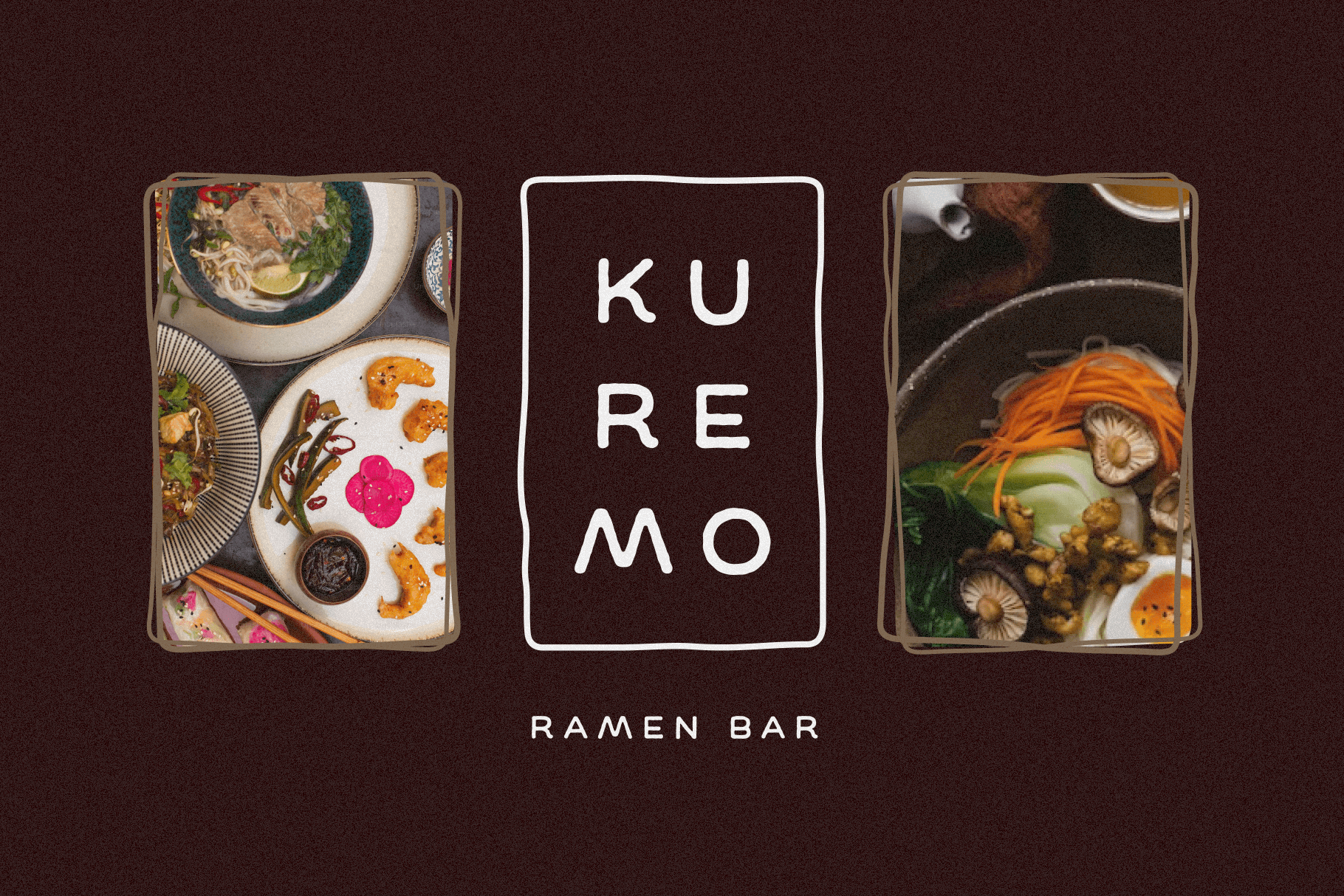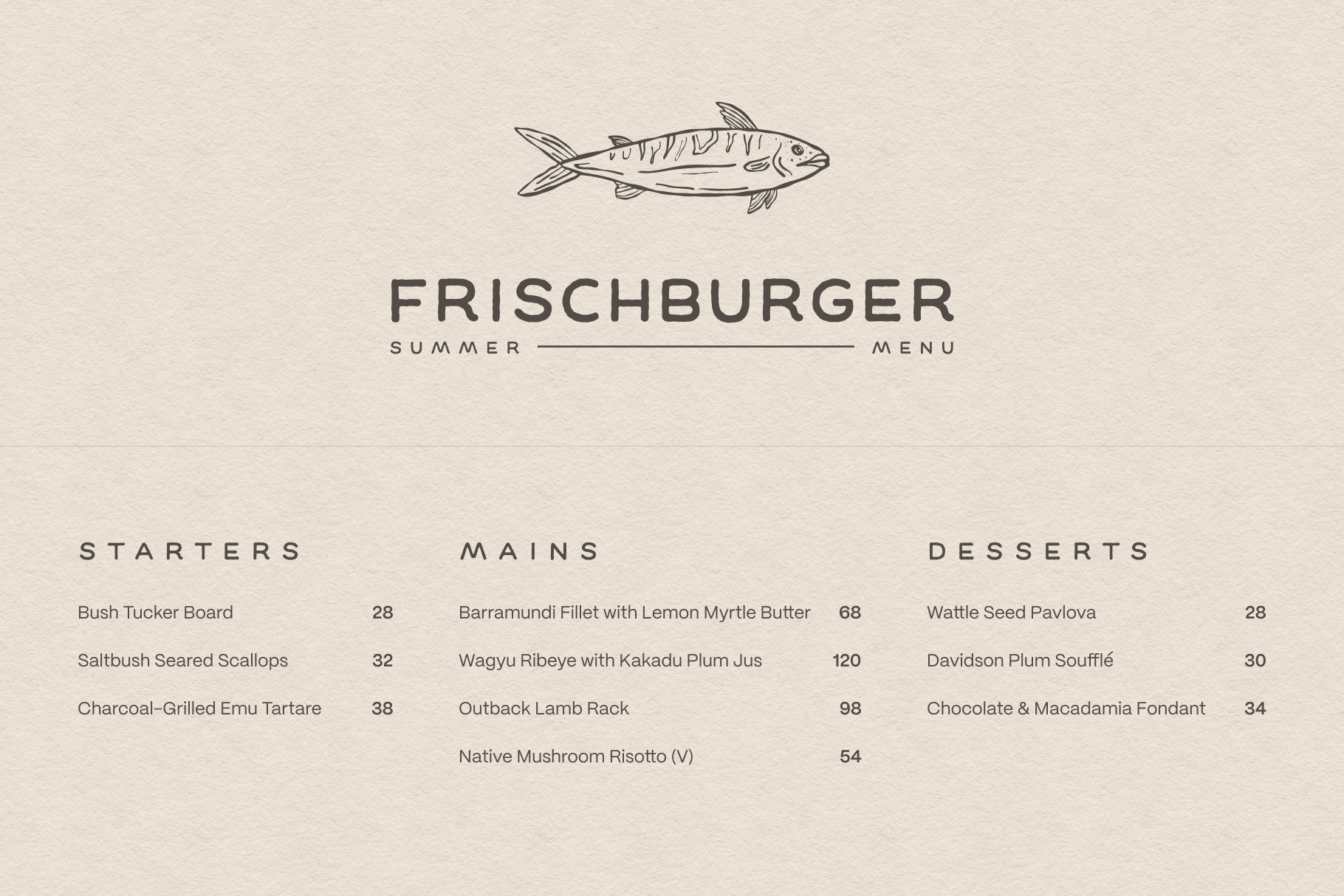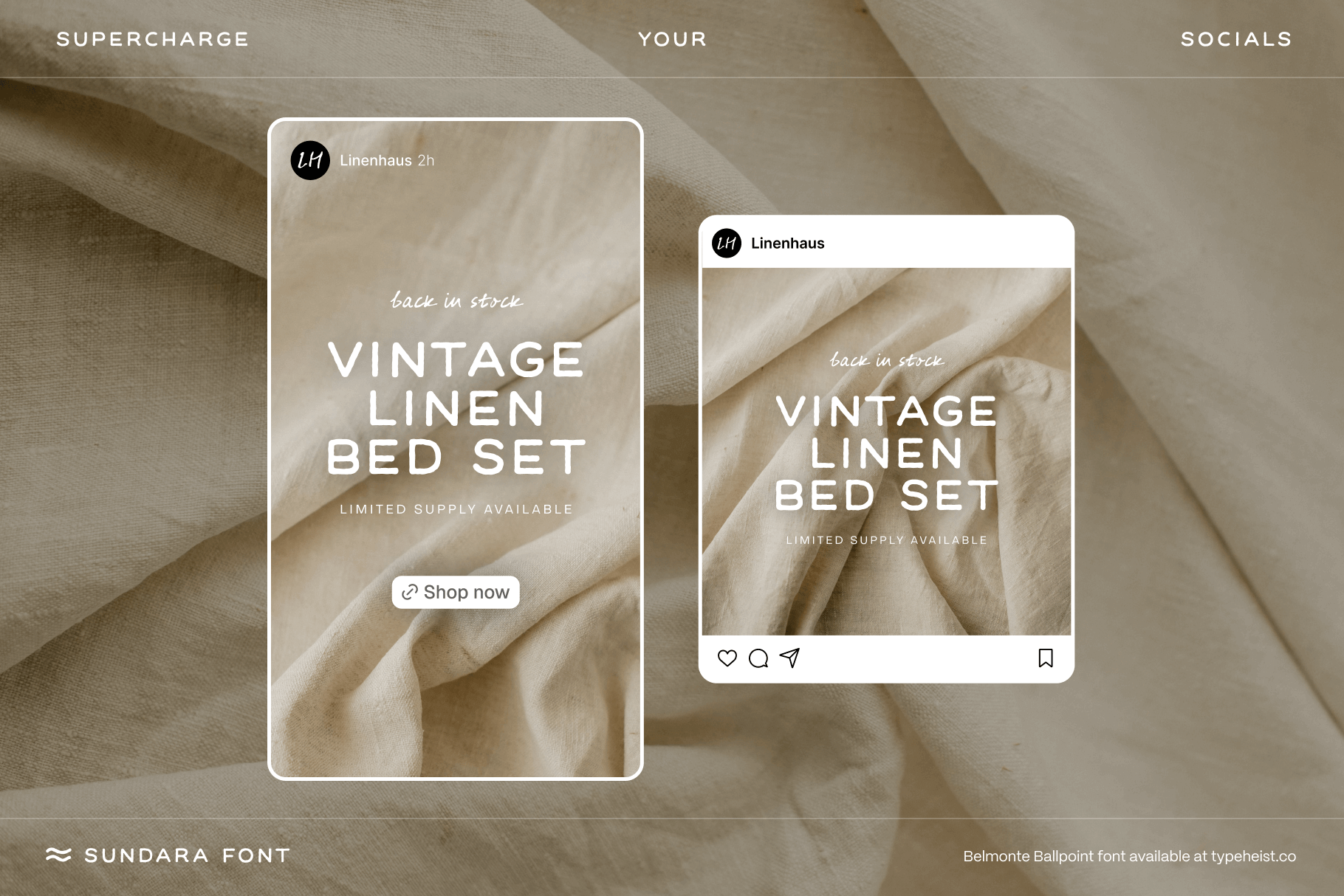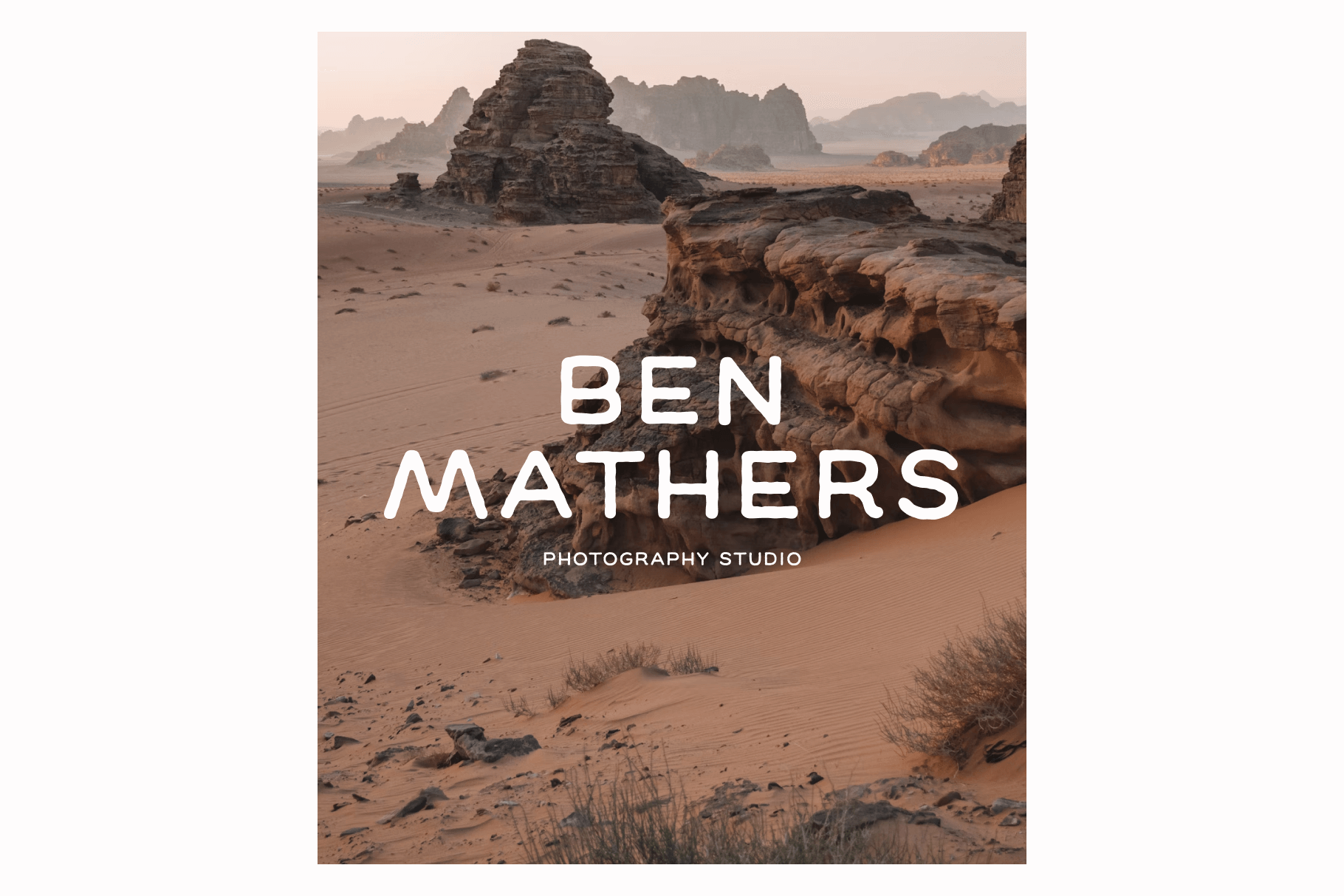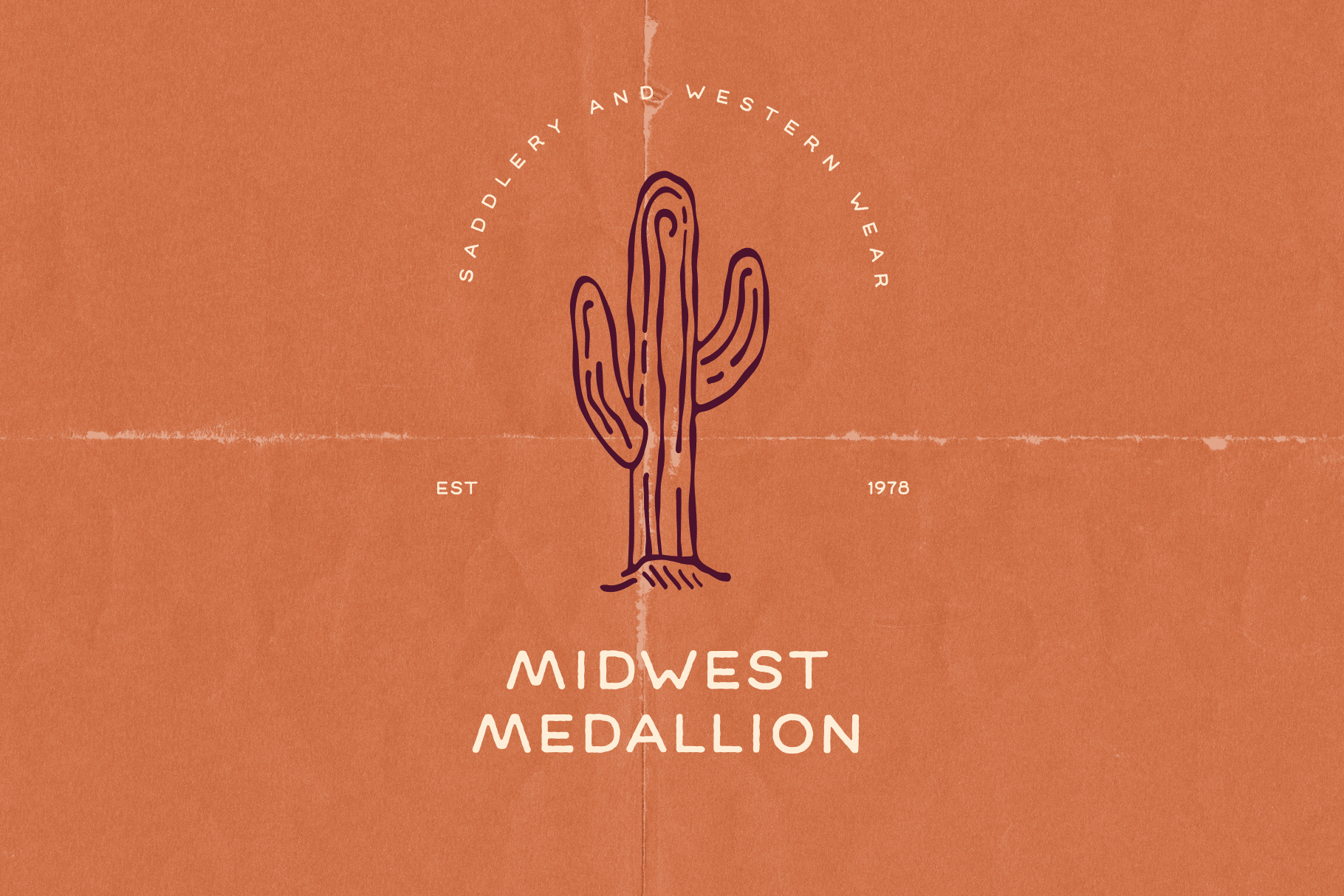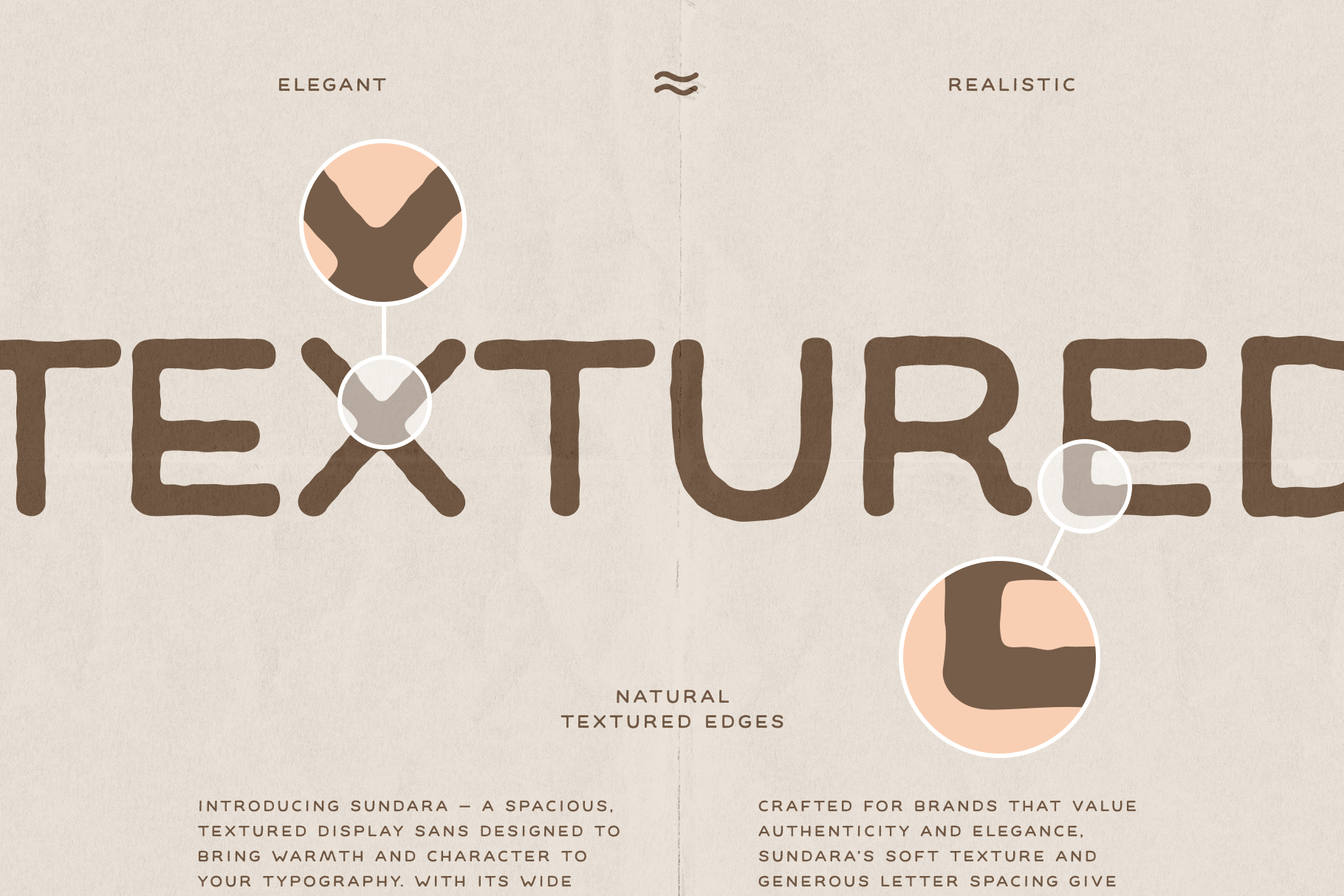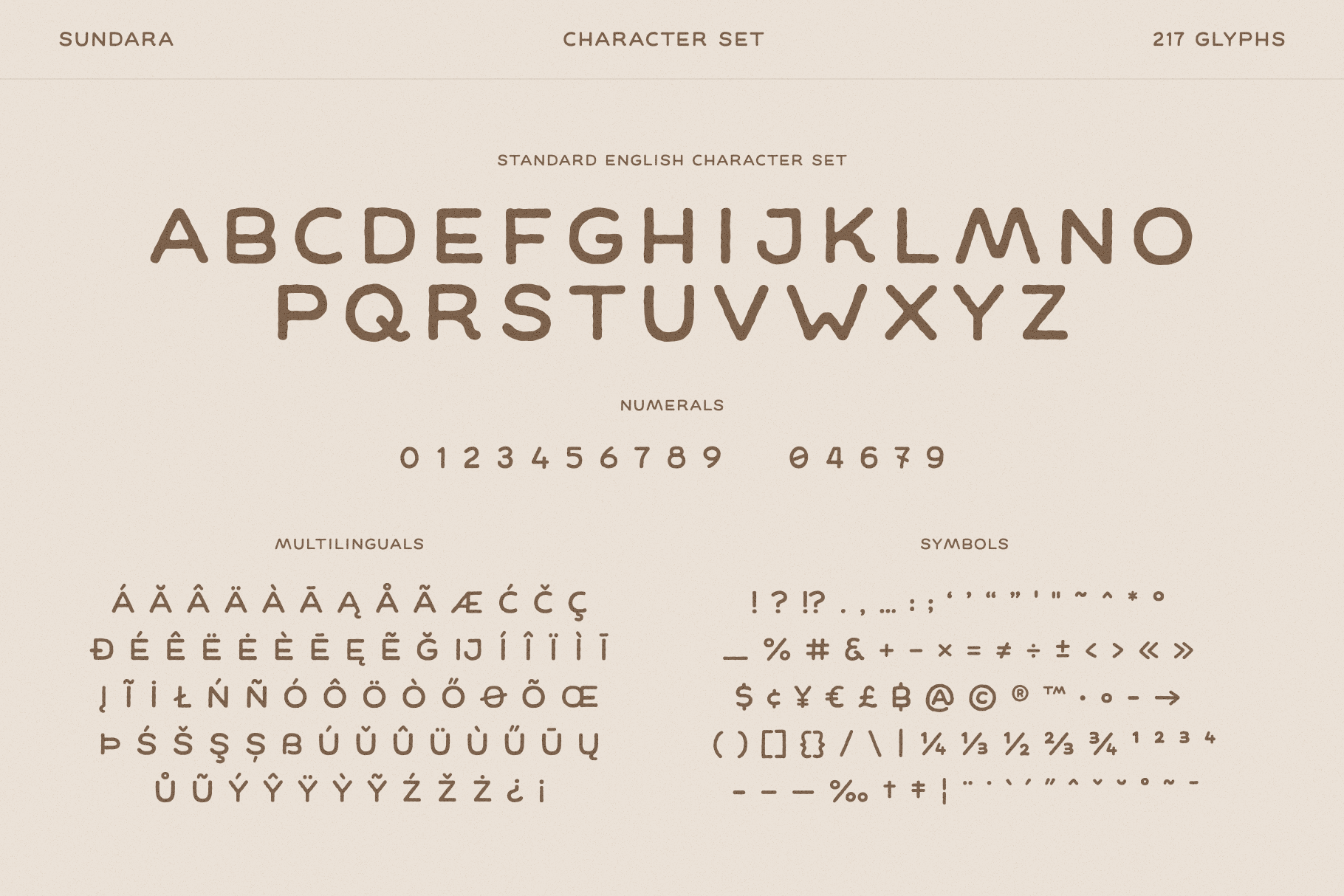
Introducing Sundara — a spacious, textured display sans designed to bring warmth and character to your projects. With its wide stance and subtle handmade feel, Sundara creates an effortless sense of openness and style.
Crafted for brands that value authenticity and elegance, Sundara’s soft texture and generous letter spacing give each word room to breathe. Its short cap height and wide proportions make it perfect for headlines, packaging, social media and branding that seeks to stand out with understated confidence.
Sundara has 217 glyphs, including multilingual characters and an extended set of Latin characters.
Whether you're creating a modern, vintage, western or classic aesthetic, this elegant display font adapts seamlessly—adding a distinctive, handcrafted touch to any project. Its textured letterforms bring depth and warmth to digital and print designs alike, making it an excellent choice for editorial layouts, logo design, product packaging, and beyond. With Sundara, every word feels intentional, spacious, and beautifully crafted.